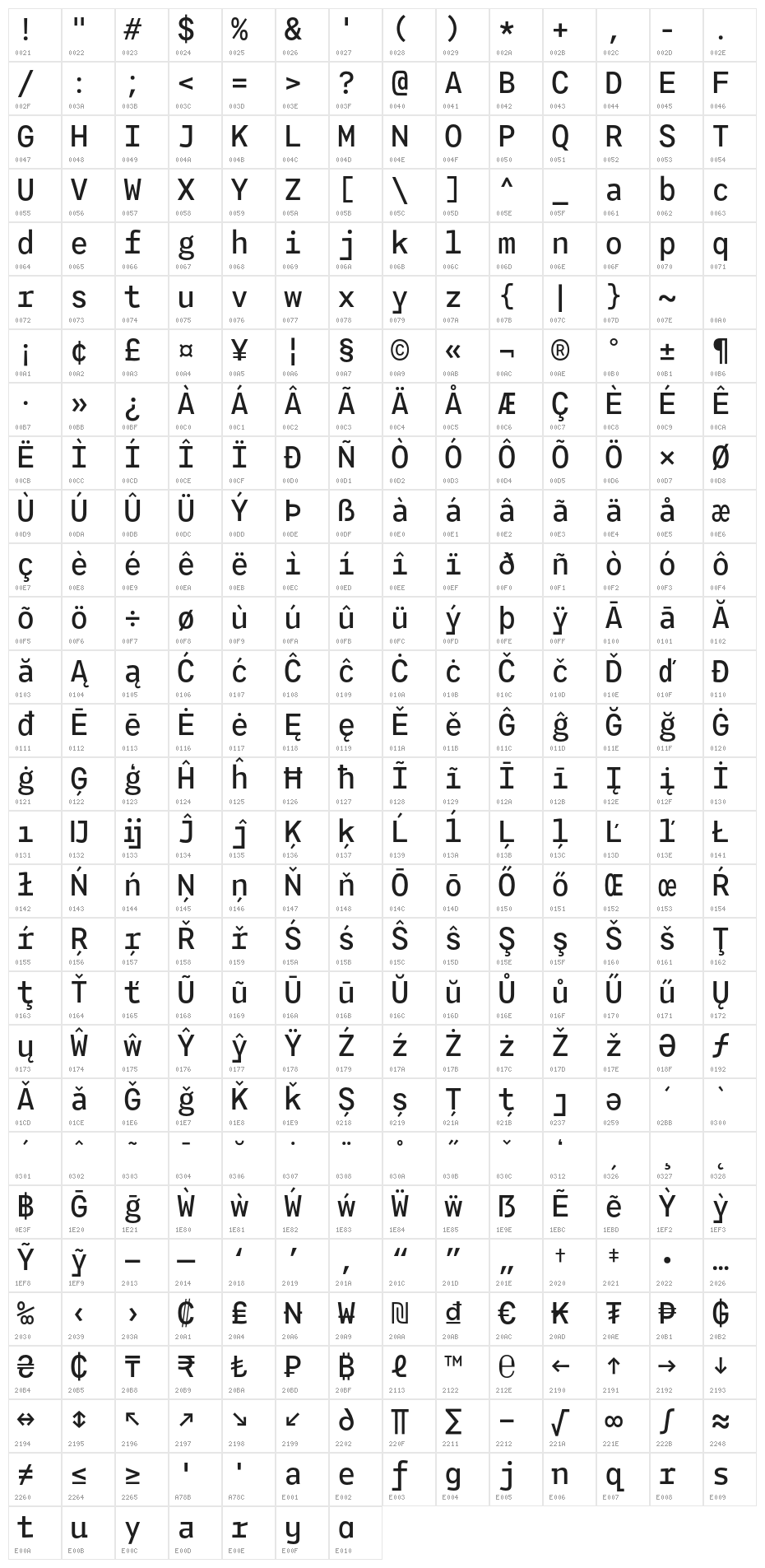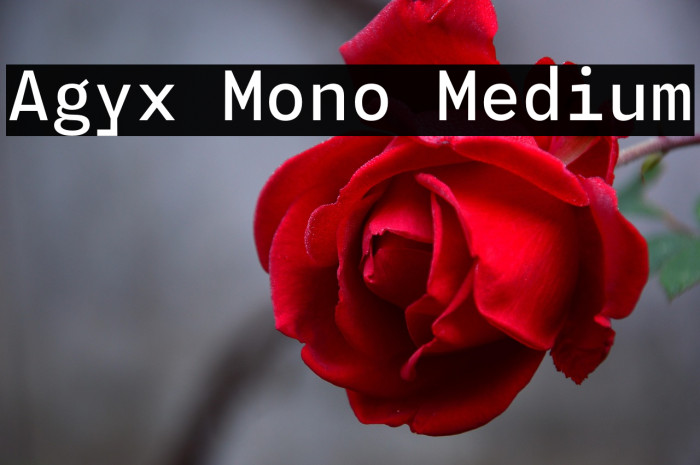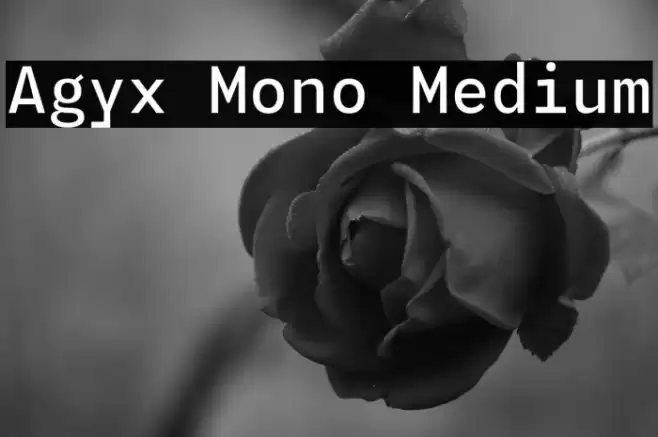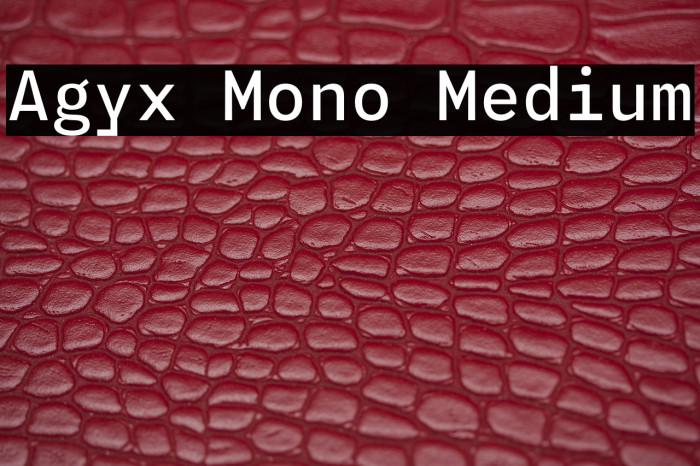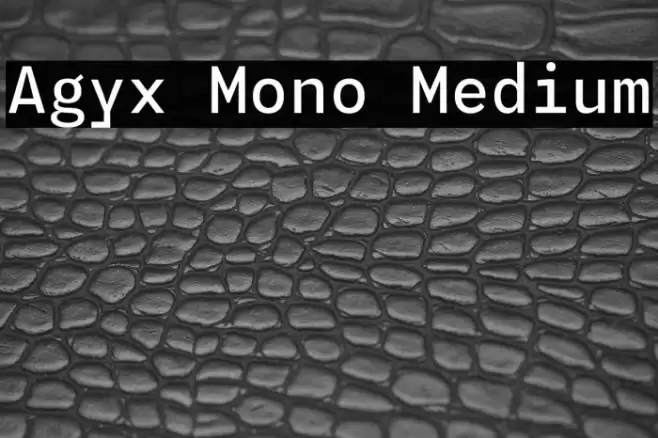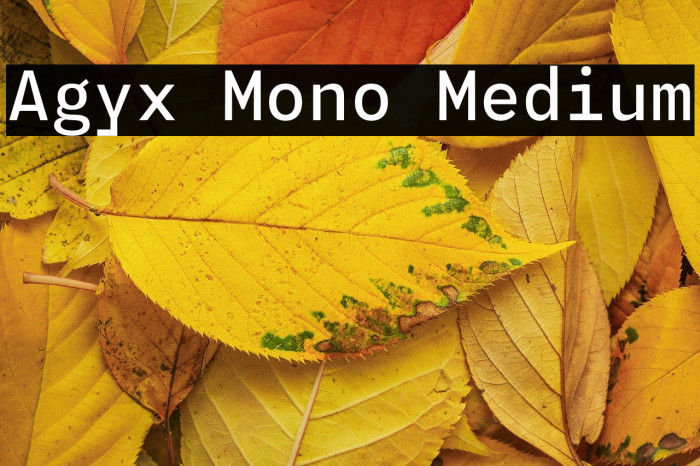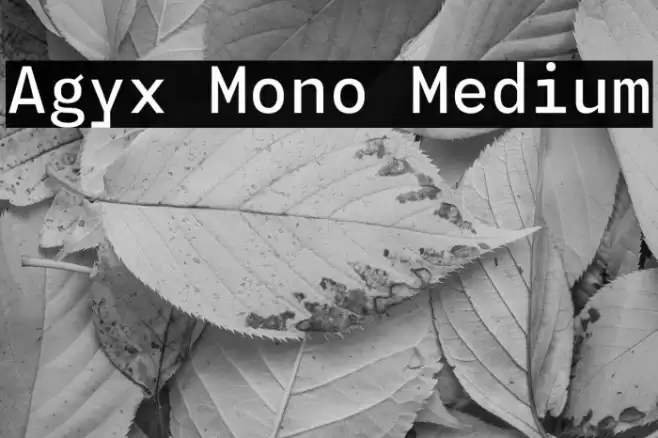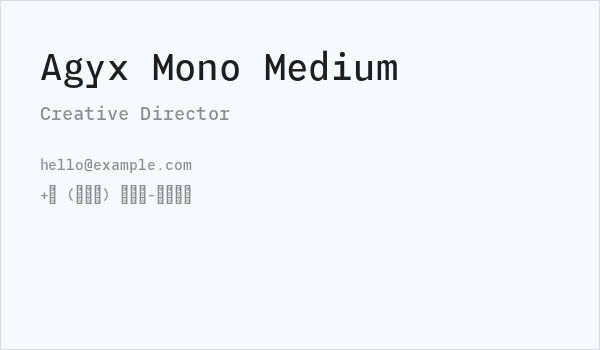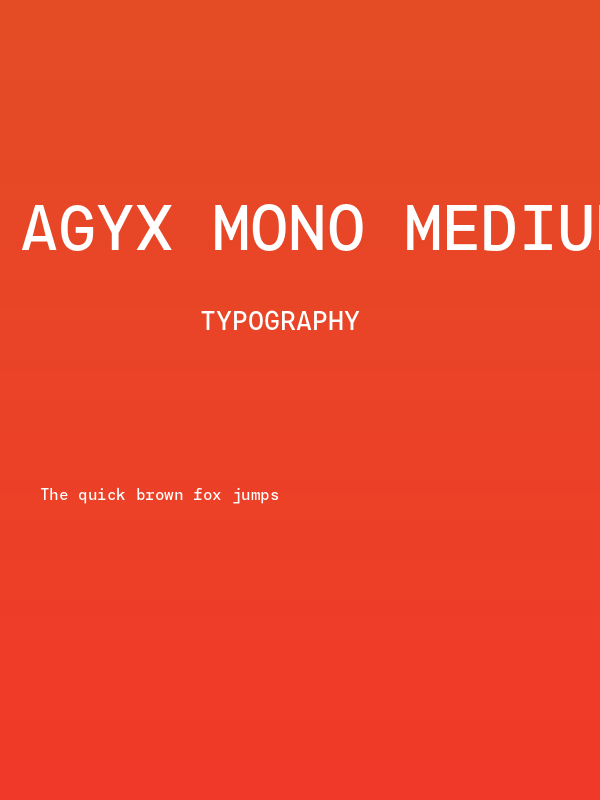
Agyx Mono Medium Font
Agyx Mono Medium Description
This font exhibits a clean, monospaced design with uniform character width, making it ideal for coding and technical documentation. The characters are well-defined with a modern, minimalist aesthetic. The uppercase letters are bold and prominent, while the lowercase letters maintain a consistent height, enhancing readability. The numerals are clear and distinct, ensuring they stand out in any context. Special characters are included, though some glyphs are missing, as indicated by placeholders. Overall, this font balances functionality with a sleek, contemporary style.
| Use Case | Coding, Technical documentation |
| Proposed Projects | Ideal for coding, technical documentation, and any project requiring a clear, uniform typeface. |